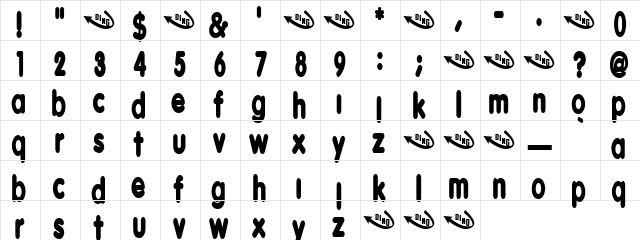
LonelyFrog Regular Free Font
LonelyFrog Regular
Design Context for LonelyFrog
LonelyFrog is a composed and adaptable typeface that performs quietly and consistently across a wide range of design contexts.